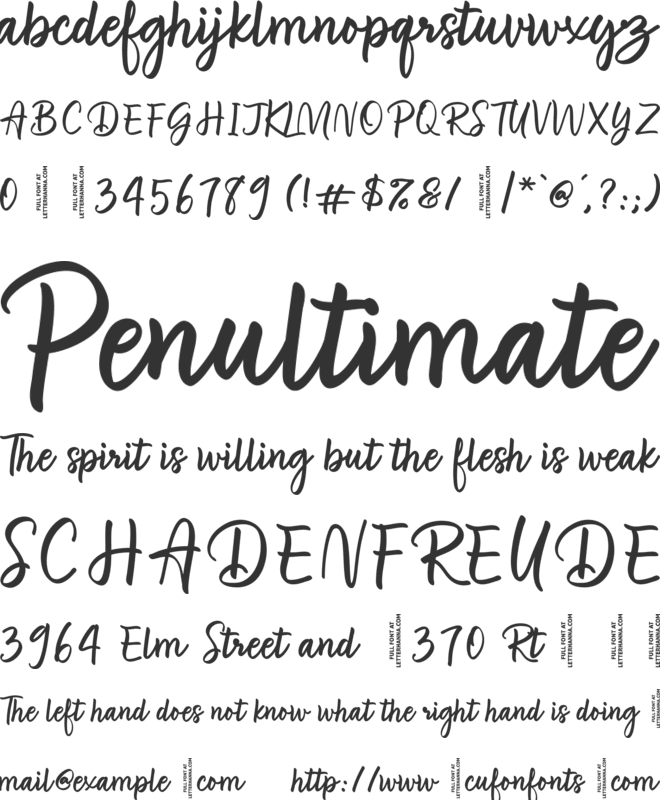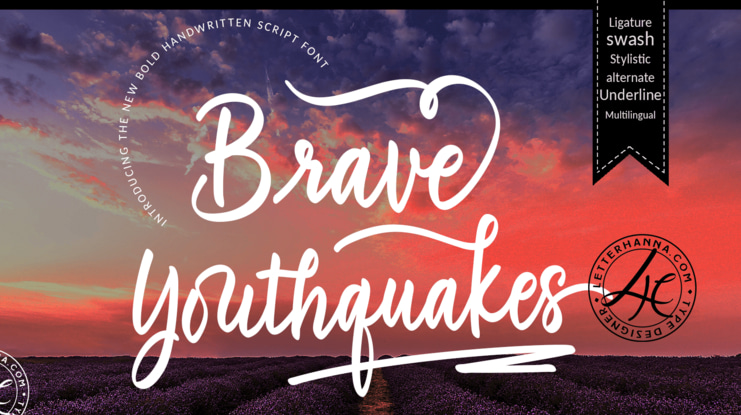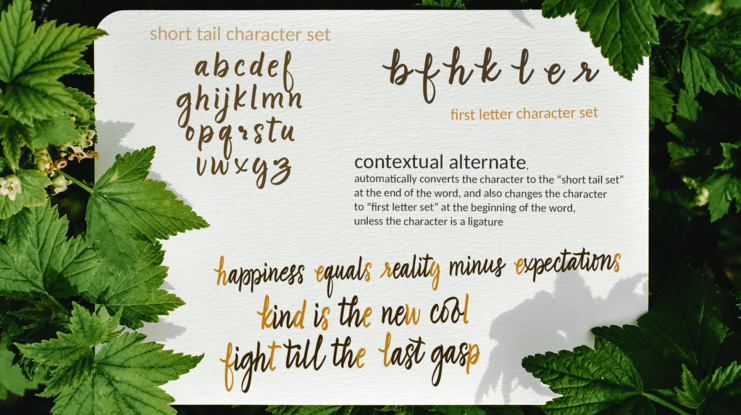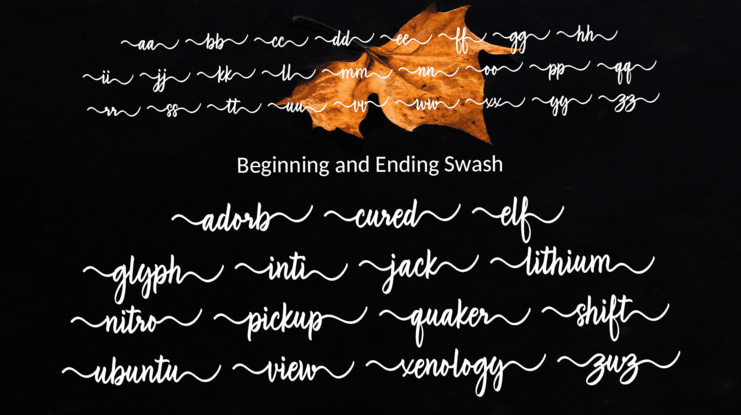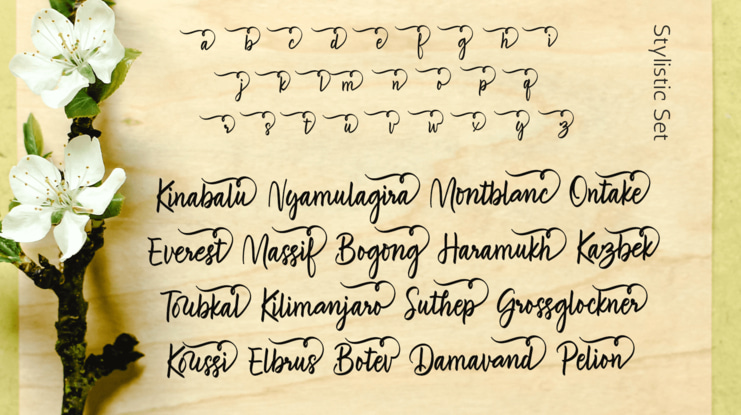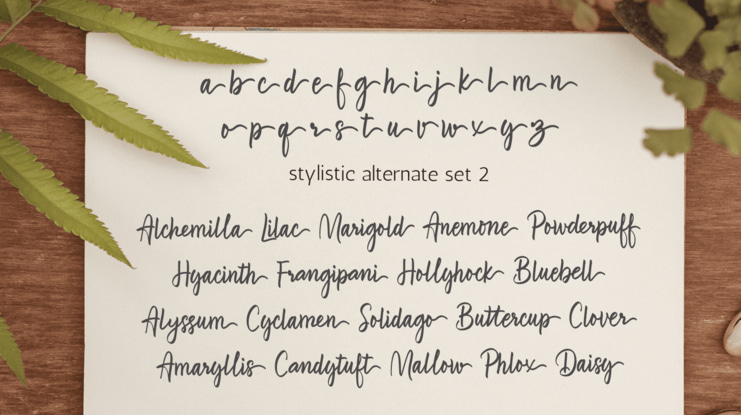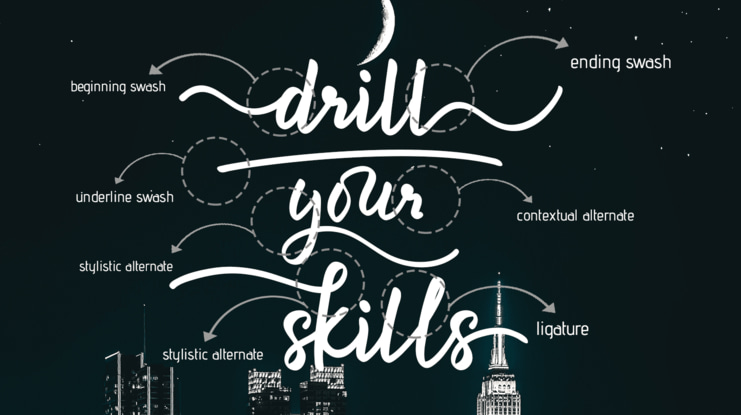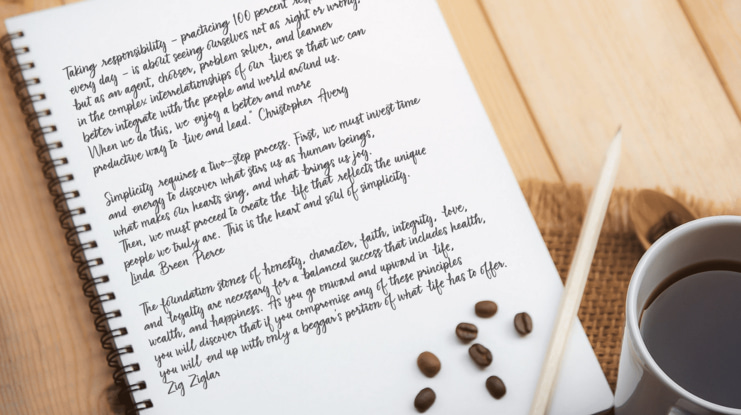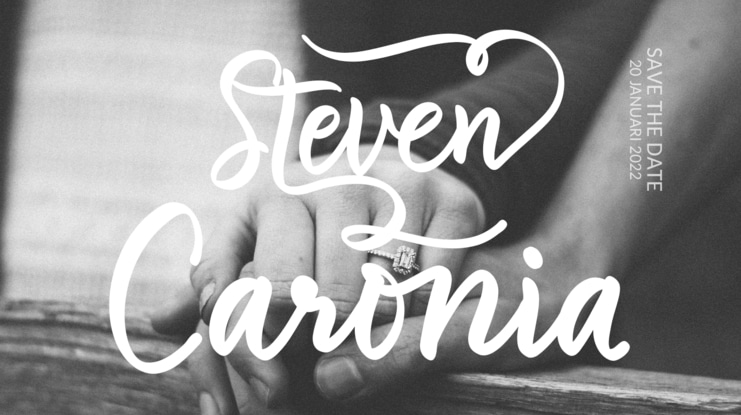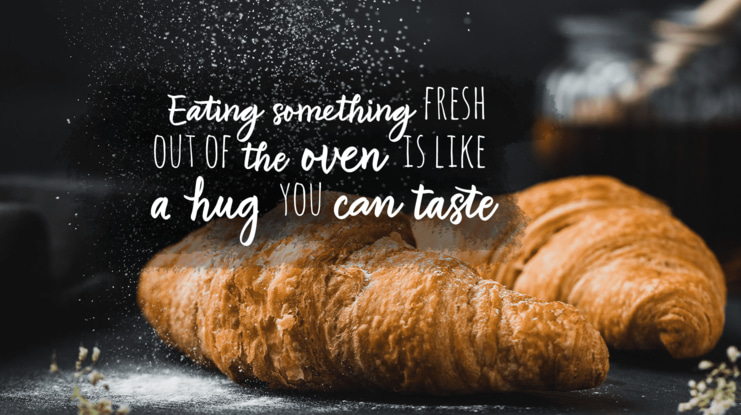
Brave Youthquakes Free Font
Brave Youthquakes Font is a beautiful and flowing handwritten font. Use it for wall displays, wedding invitations, social media post logos, advertisements, product packaging, product designs, labels, photography, watermarks, invitations, stationery, and any project that requires impressive typography.
To achieve that authentic handwritten feel, Brave Youthquakes comes with a full set of lowercase alternates as well as 40+ ligatures,
You will get full set of lowercase and uppercase letters, numerals and punctuation, multilingual symbols, lowercase beginning and ending swashes, ligatures, stylistic alternates and extra swashes.
FEATURES
- Uppercase and Lowercase letters
- Numbering and Punctuations
- Multilingual Support
- Ligatures
- Beginning and ending swashes
- Underline swashes
- Stylistic alternate.